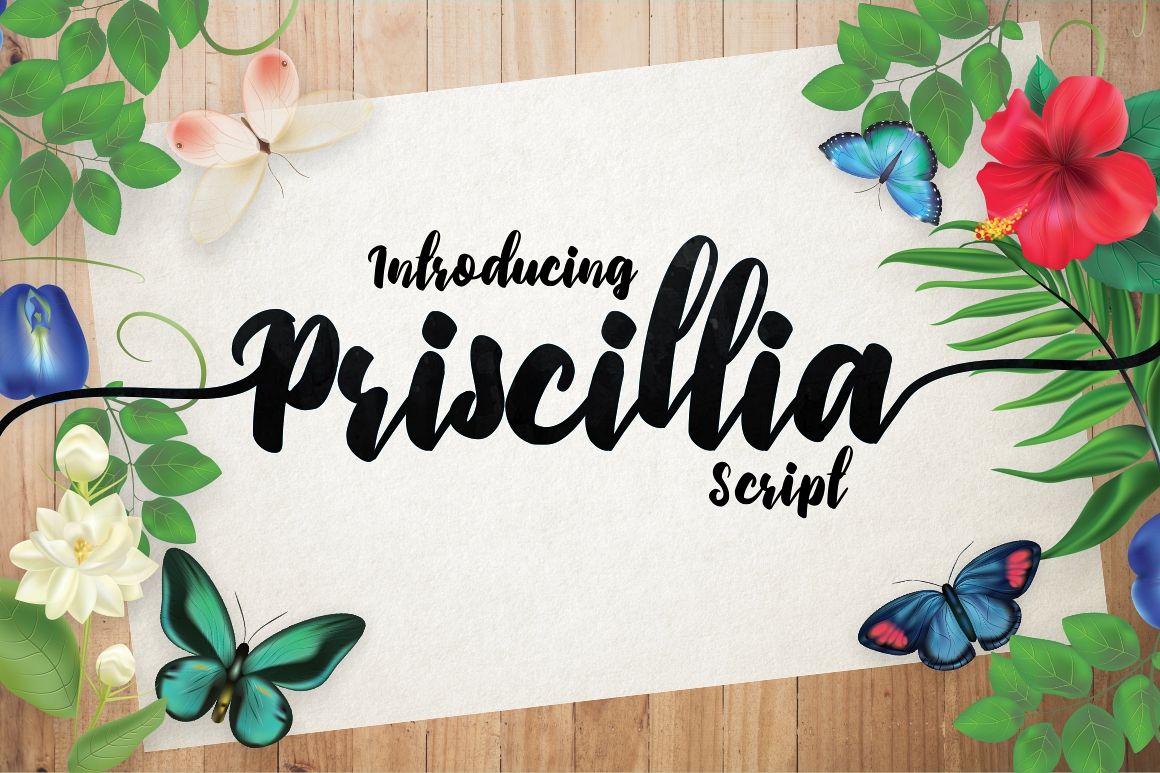
Priscillia Script
Introducing Priscillia Script
This font inspired from my handlettering with brush pen, that look cute and so suitable for the design of holiday cards, postcards, brochures, invitations, and other interesting design purposes.
:- Uppercase, Lowercase, Punctuation
- Standard Opentype with Stylistic Alternate on front and behind